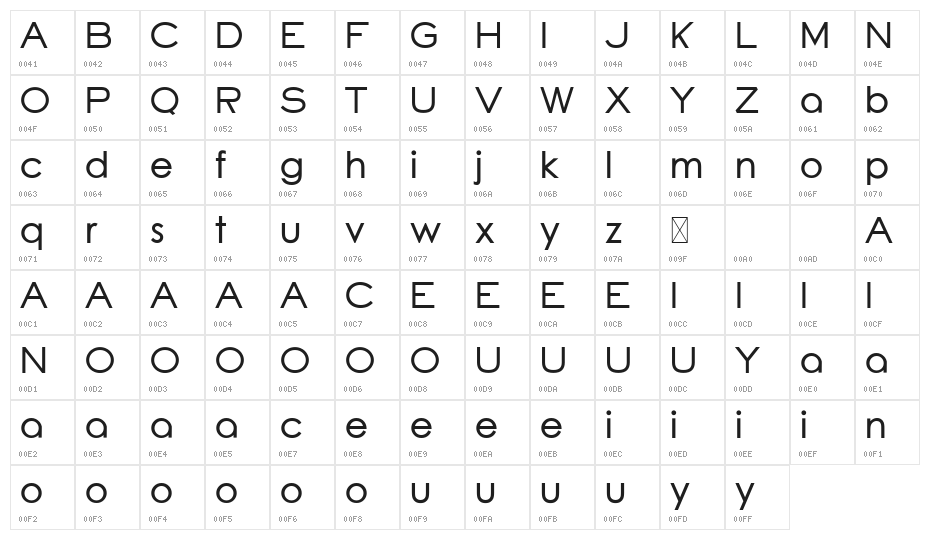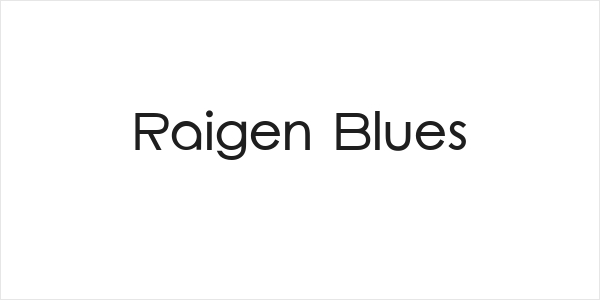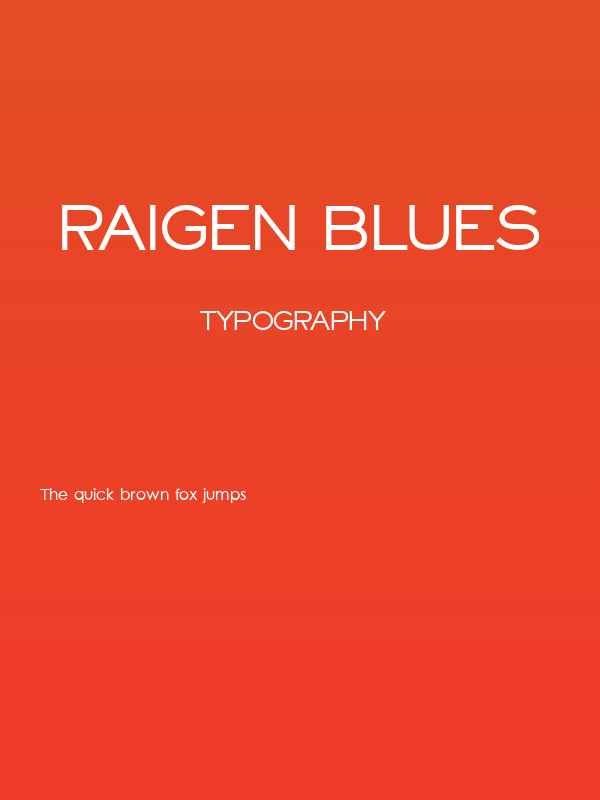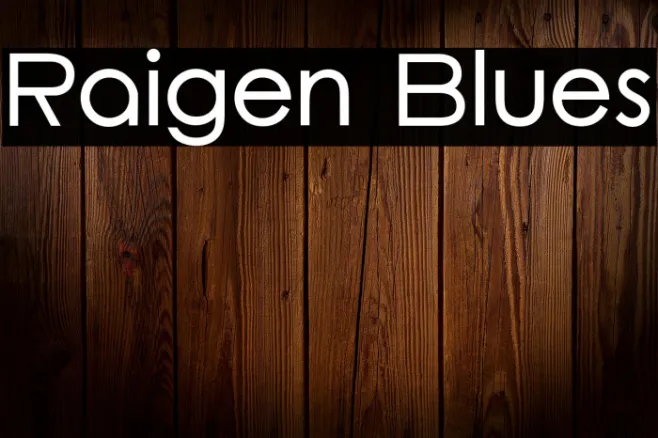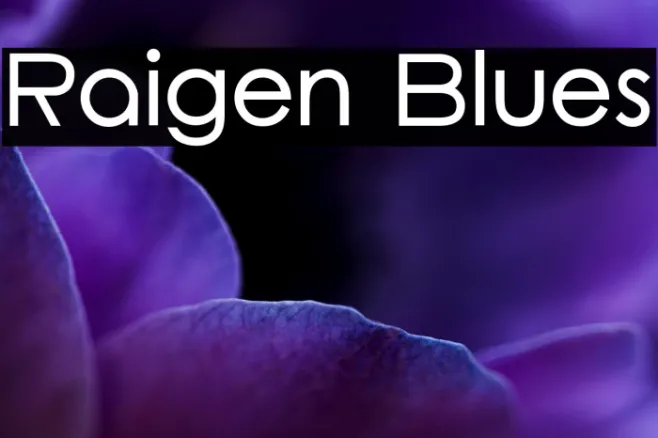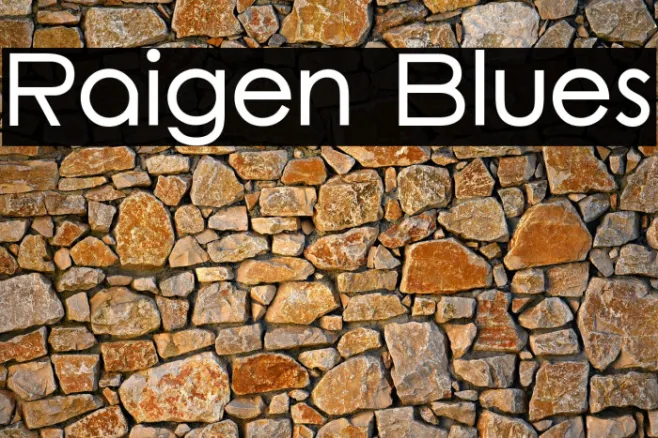
Raigen Blues Font
Raigen Blues Description
This font features a clean and modern sans-serif design, characterized by its geometric shapes and uniform stroke widths. The uppercase and lowercase letters are well-balanced, with a consistent height and width that provide a harmonious appearance. The characters are slightly rounded, giving a friendly and approachable feel while maintaining a professional look. The numerals and special characters are designed to match the overall aesthetic, ensuring readability and visual appeal. This font is versatile, suitable for both digital and print media, and can be used effectively in a variety of design contexts.